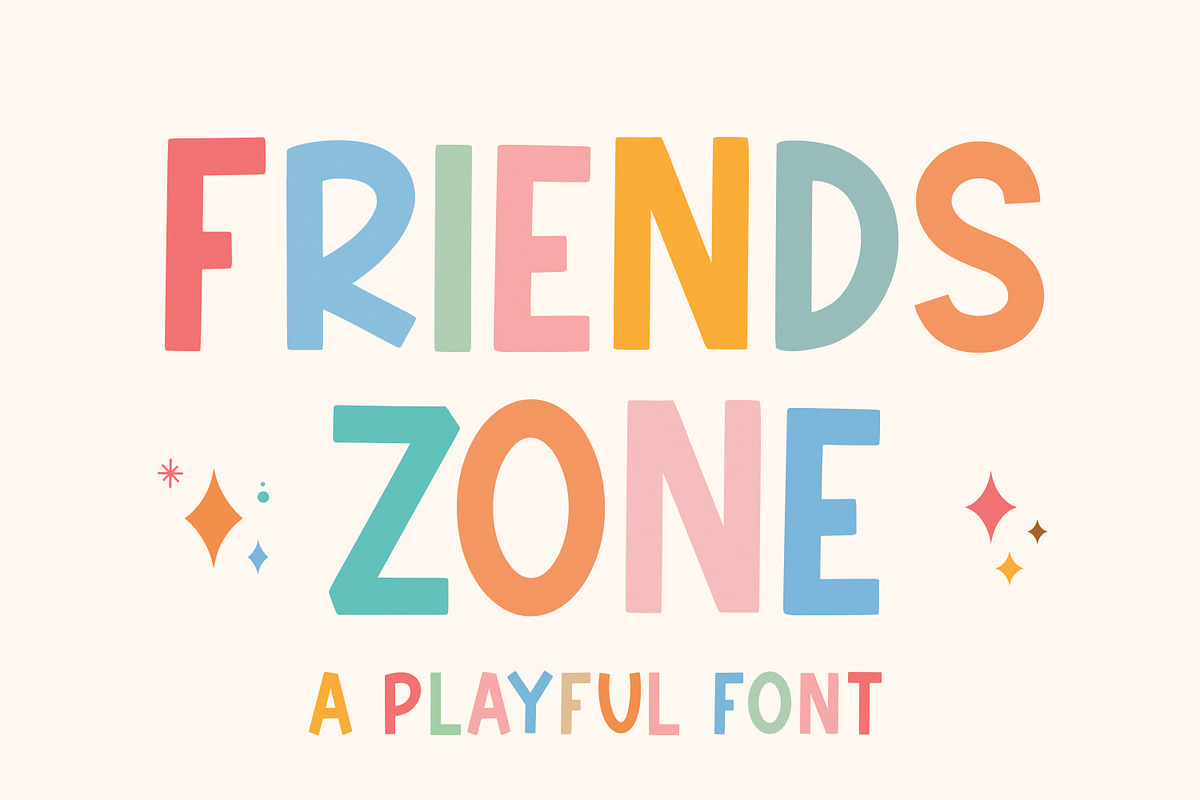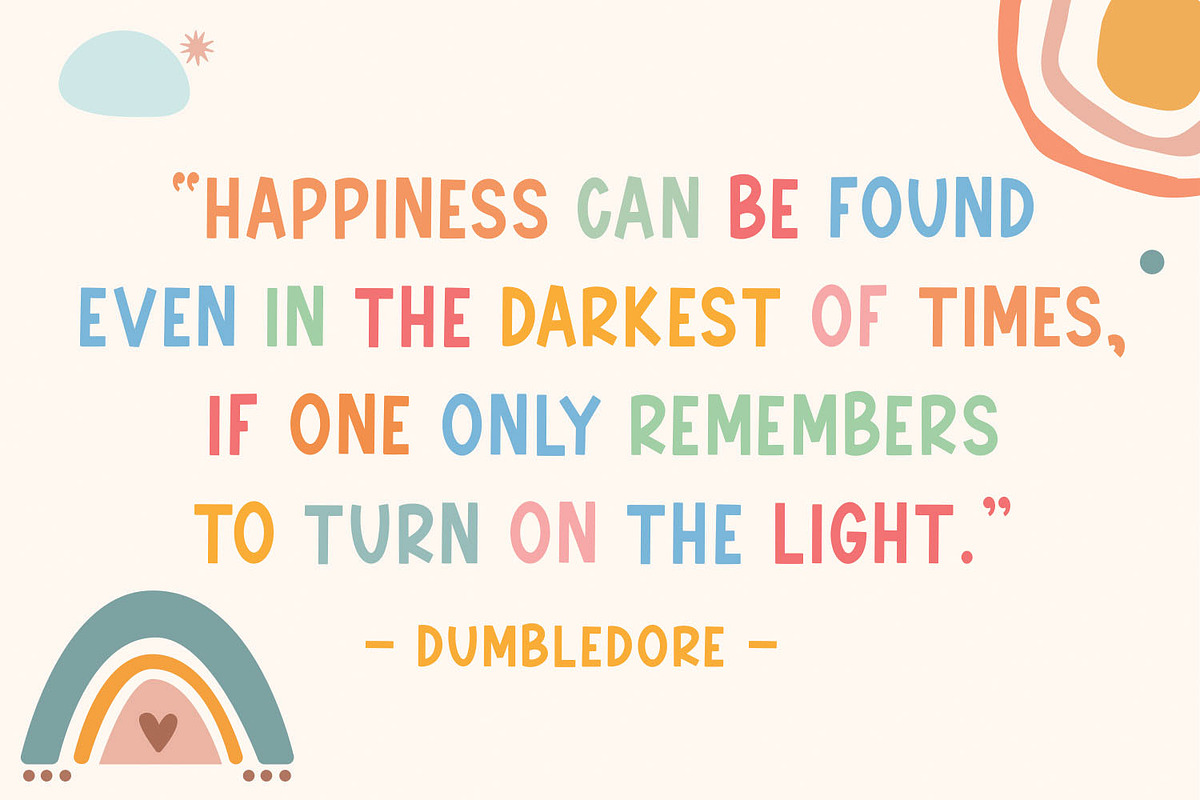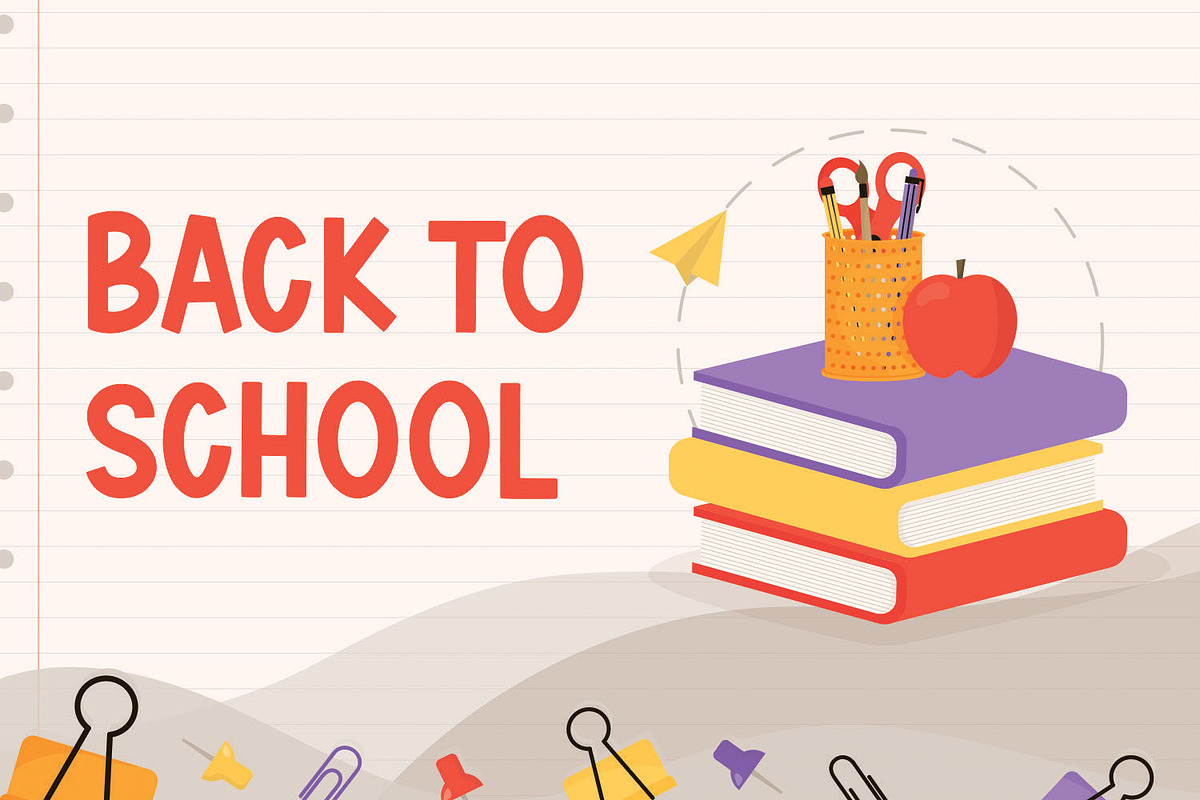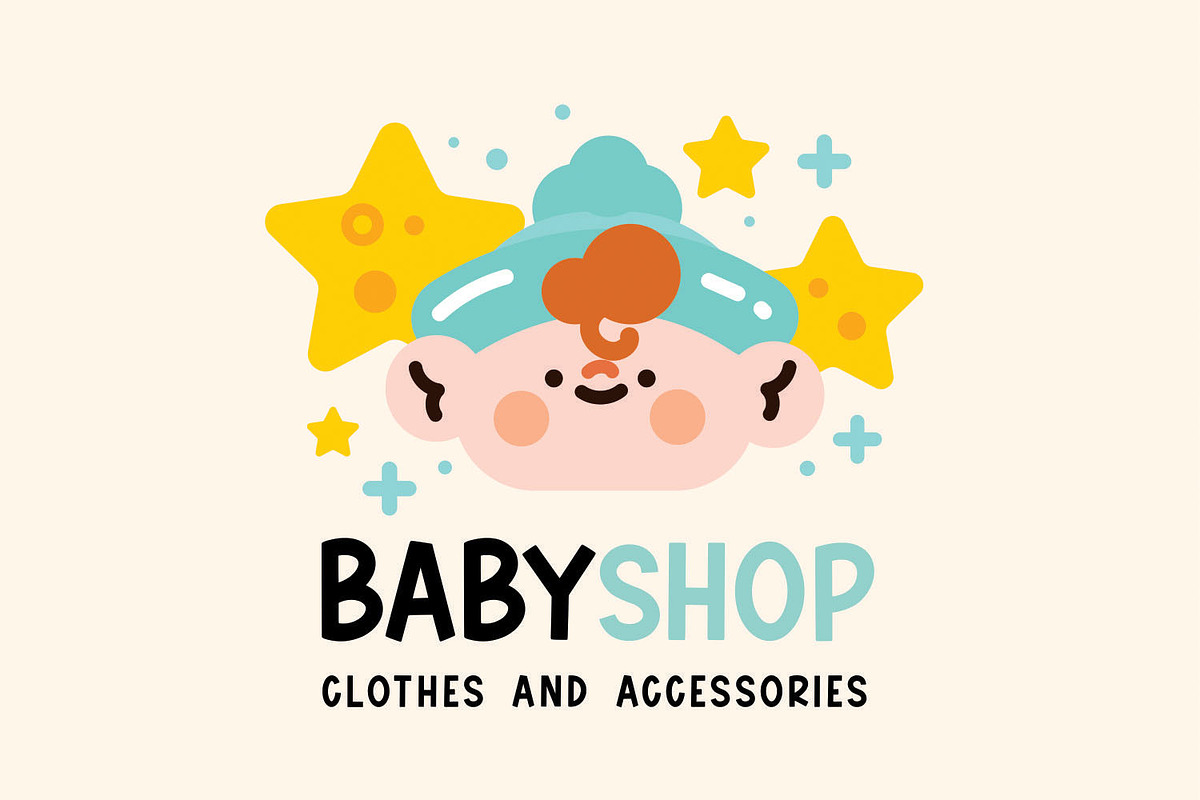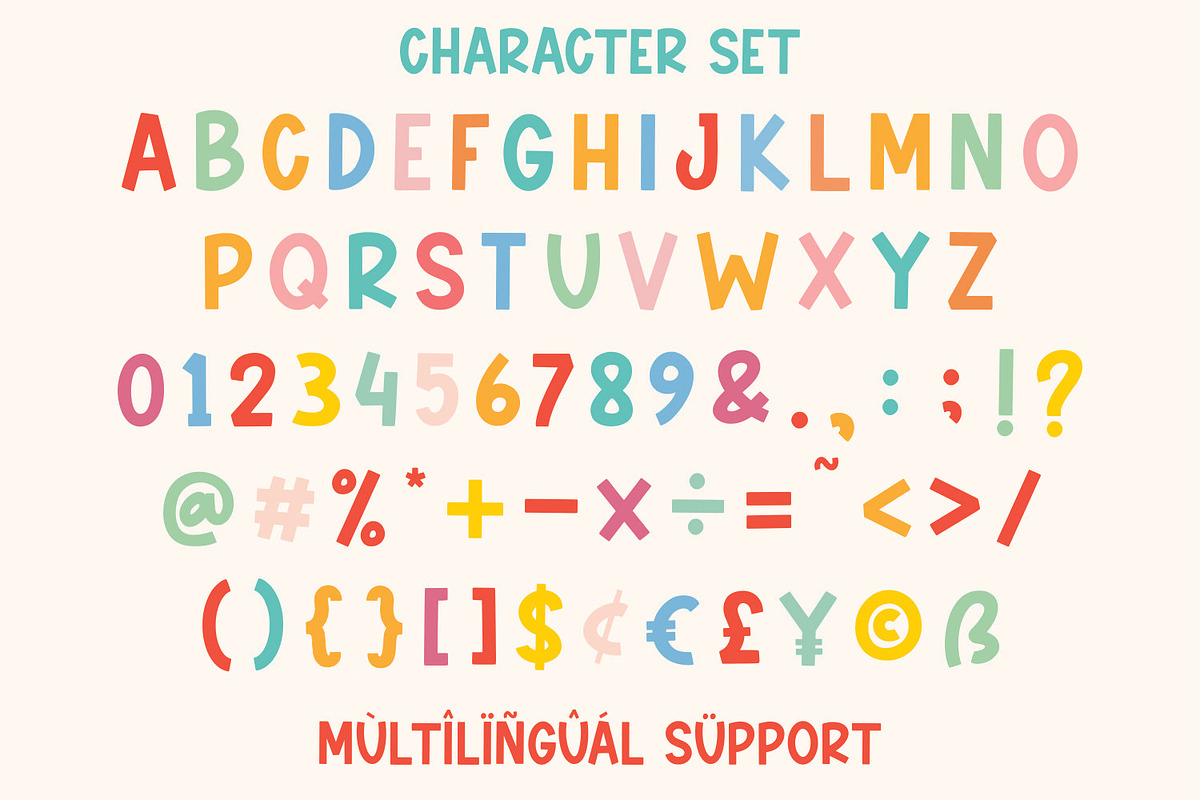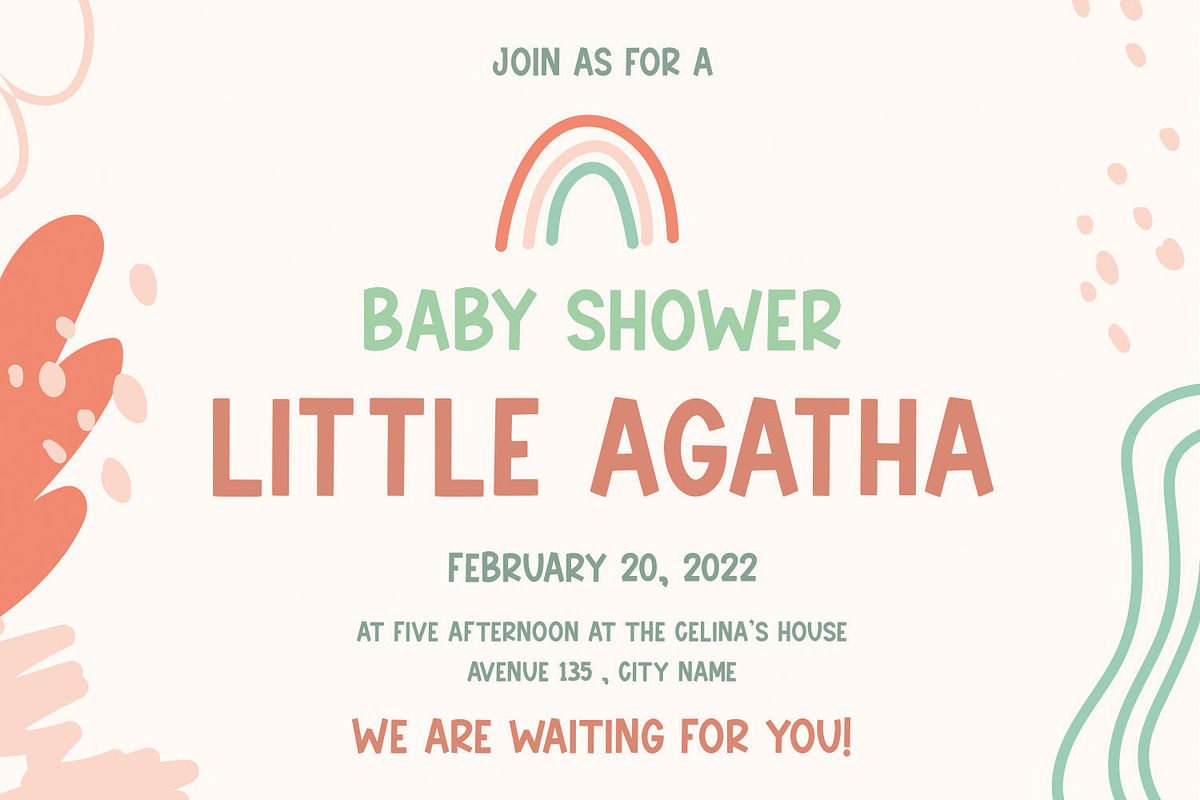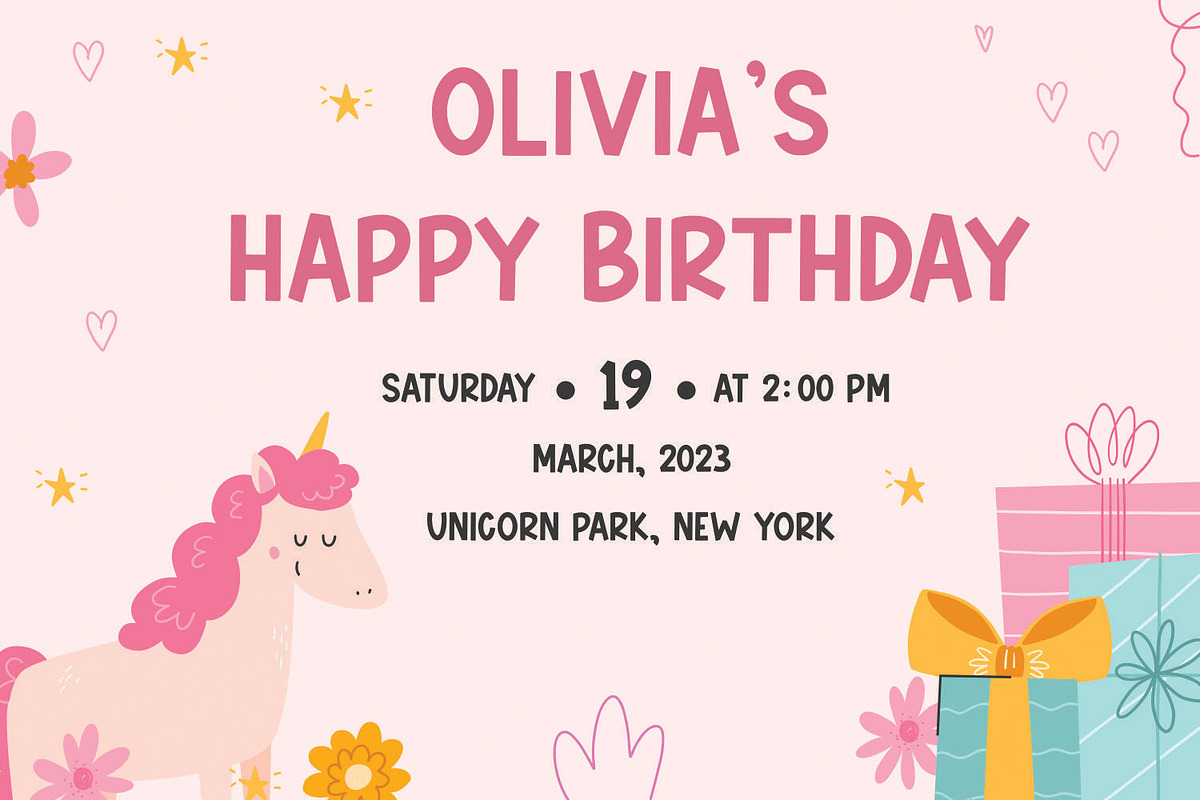
Friendszone
Friendszone is a cute ,a fun and cheerful display font. Its chubby characters and lighthearted nature make this typeface a must-have in your fonts library! Use it to express your creative and playful design ideas. Whether you’re using it for crafts, digital design, presentations, or making greeting cards, this font has the potential to become your favorite go-to font, no matter the occasion!
Also with their help, you can create a logo or beautiful frame for your home. Or use it for your business, book covers, stationery, marketing, magazines, and more. Fall in love with its incredibly versatile style and use it to create spectacular designs! Use this font for any crafting project that requires a personalized look!